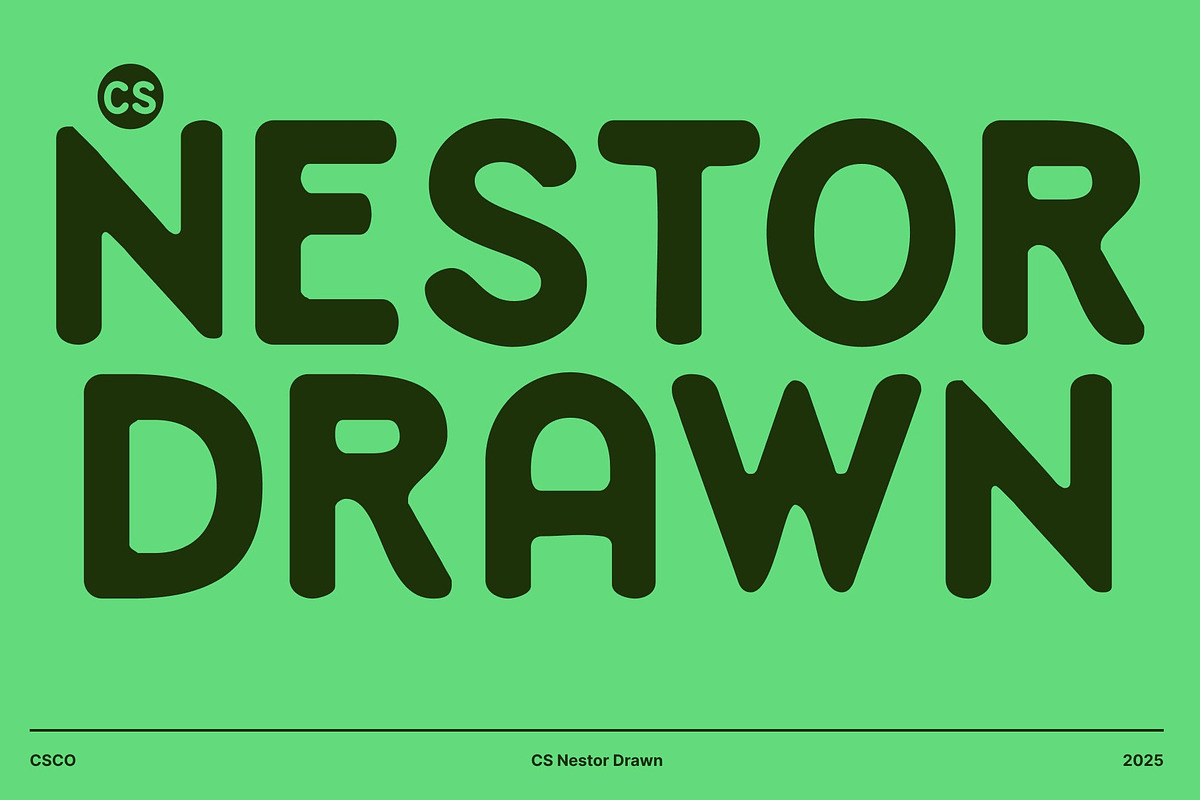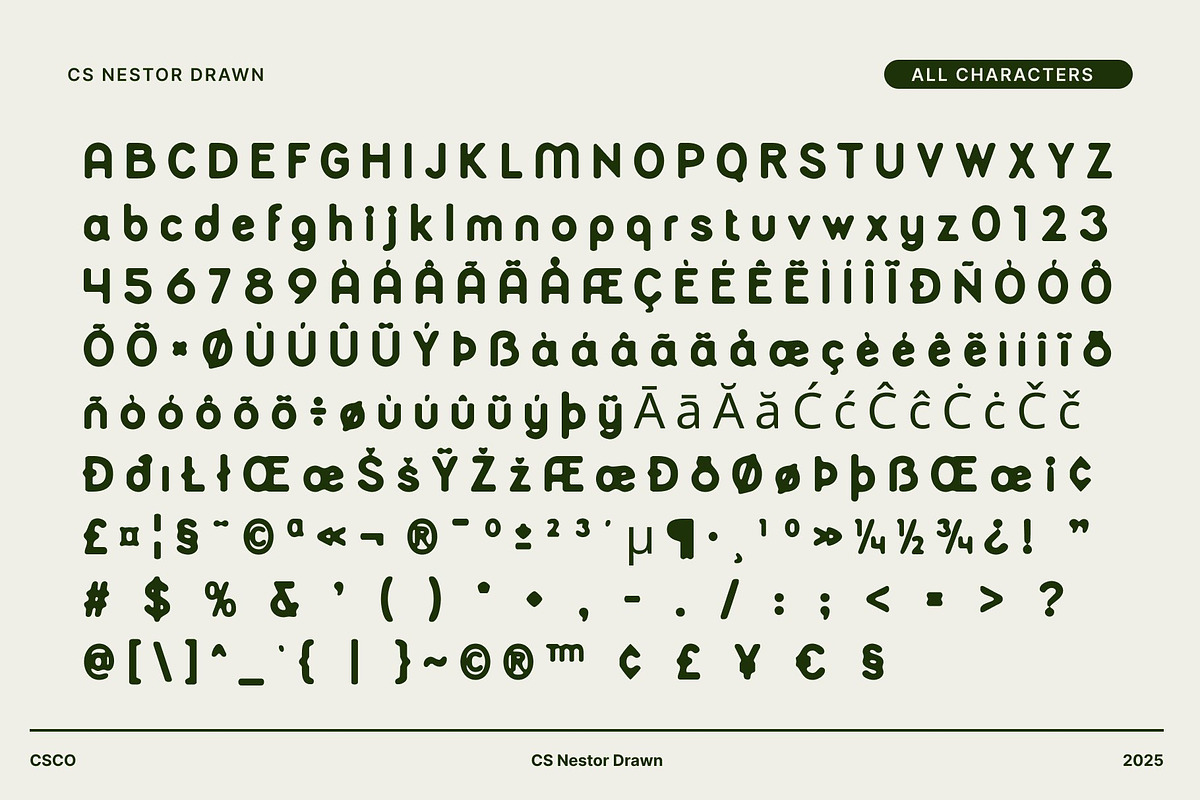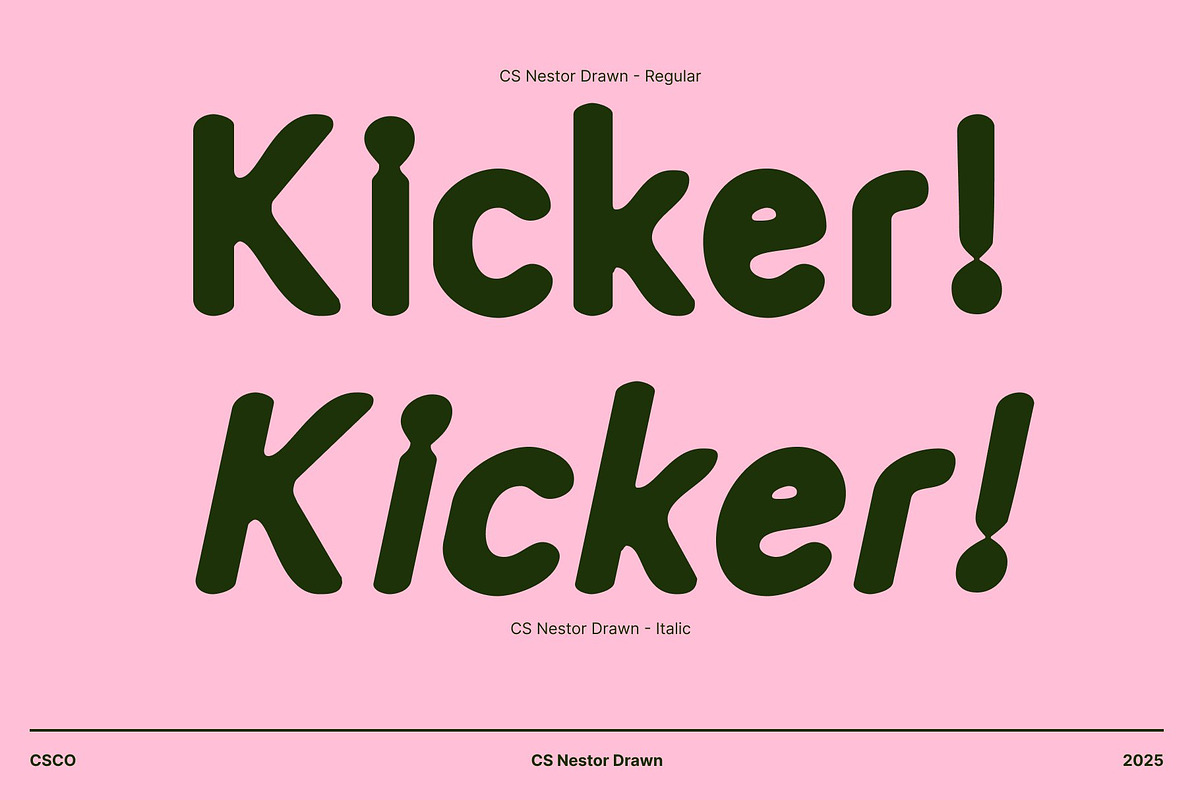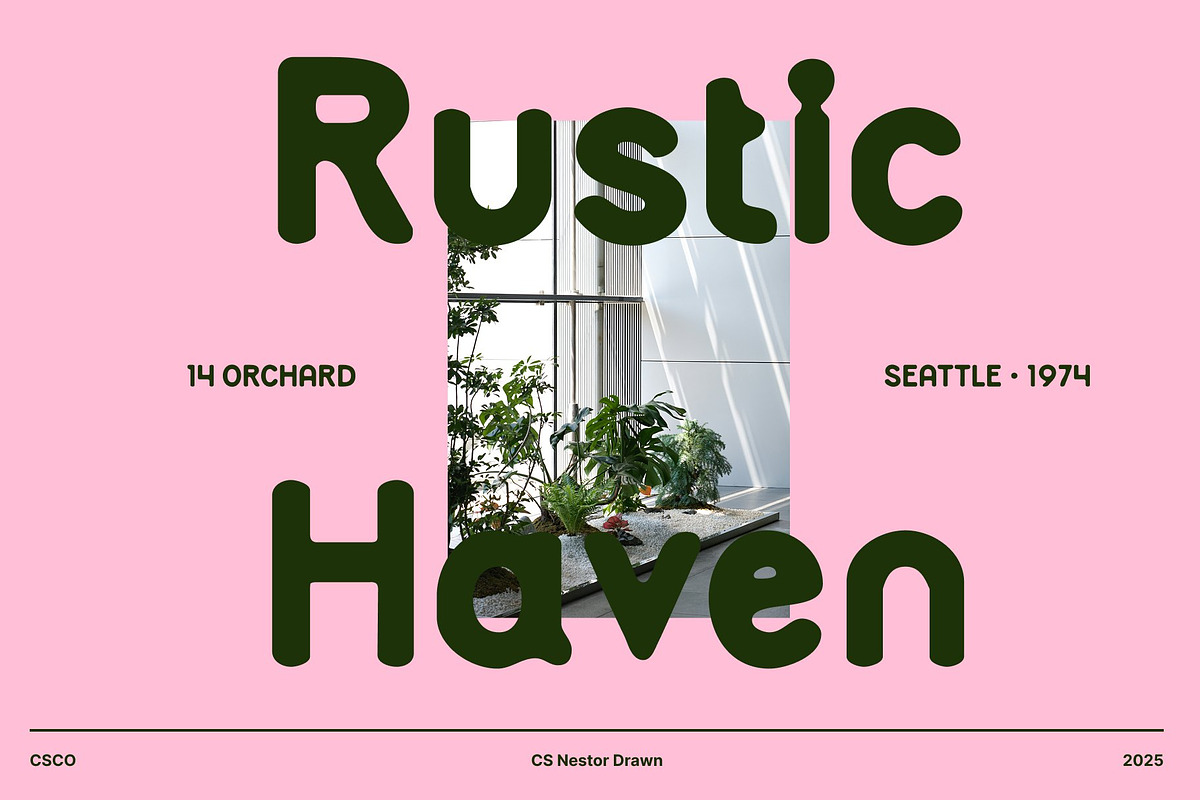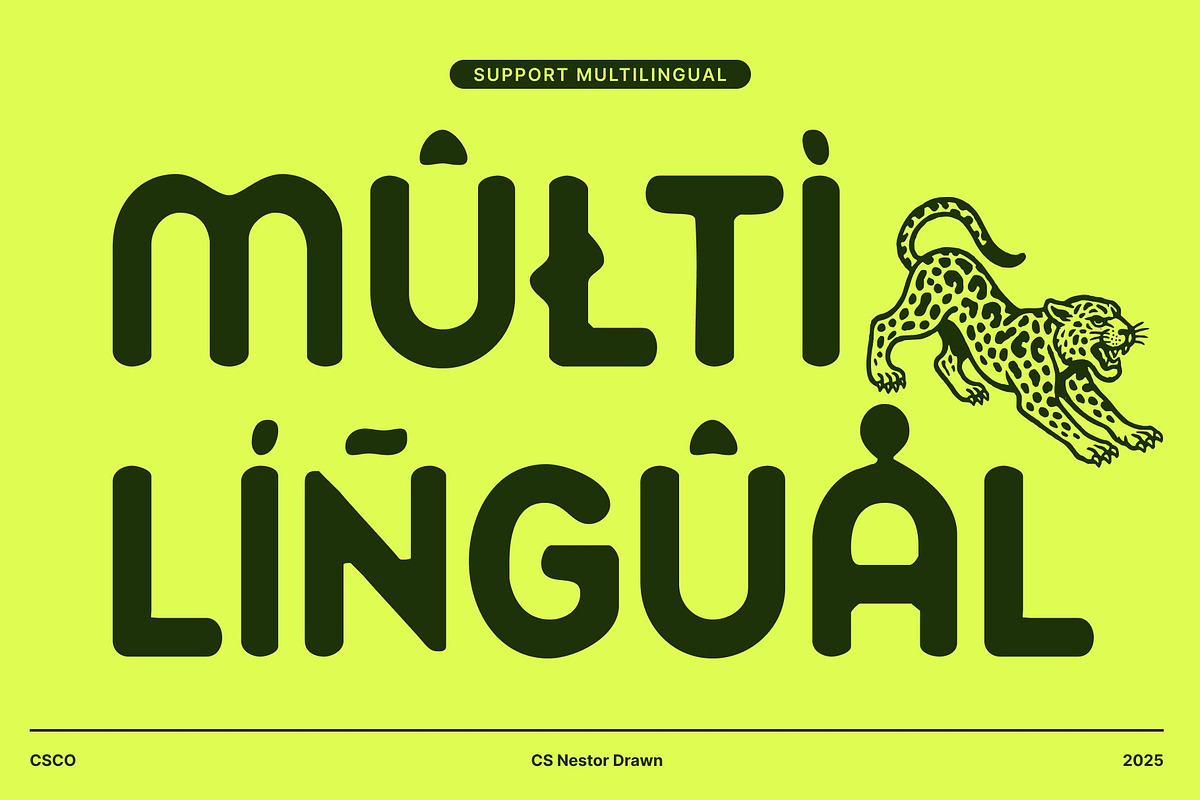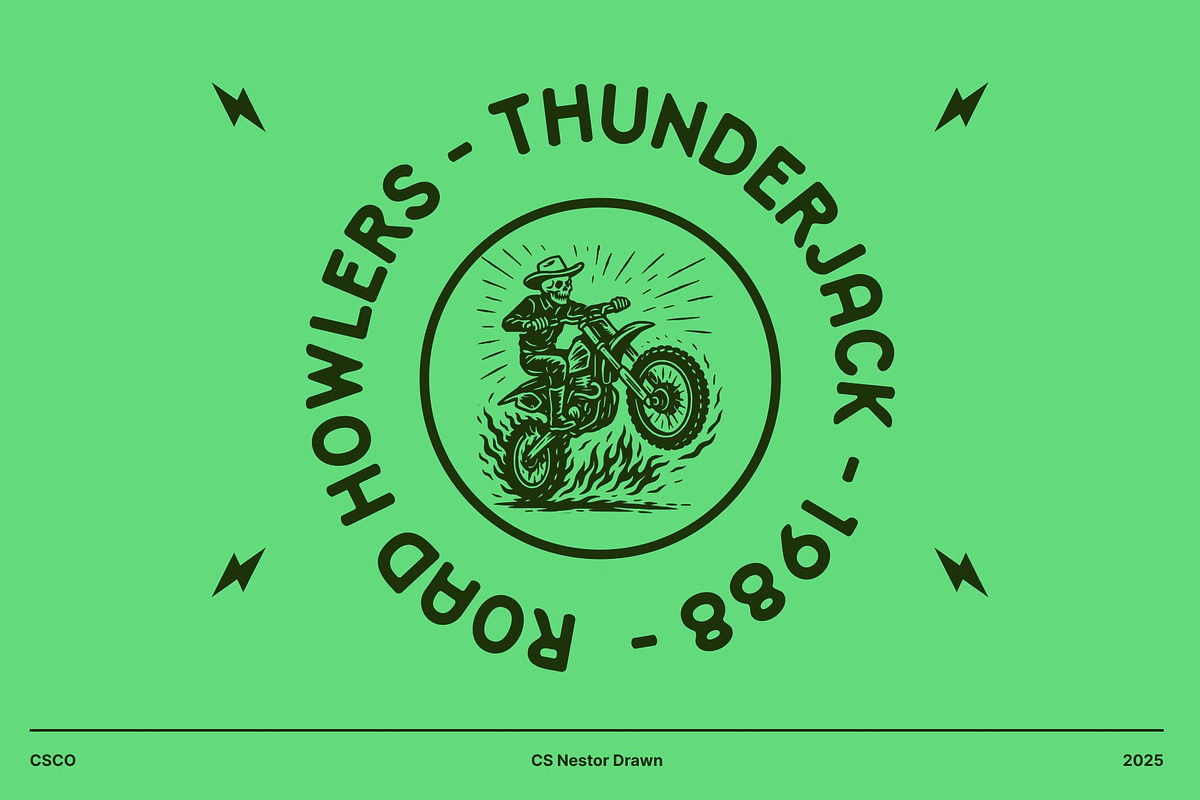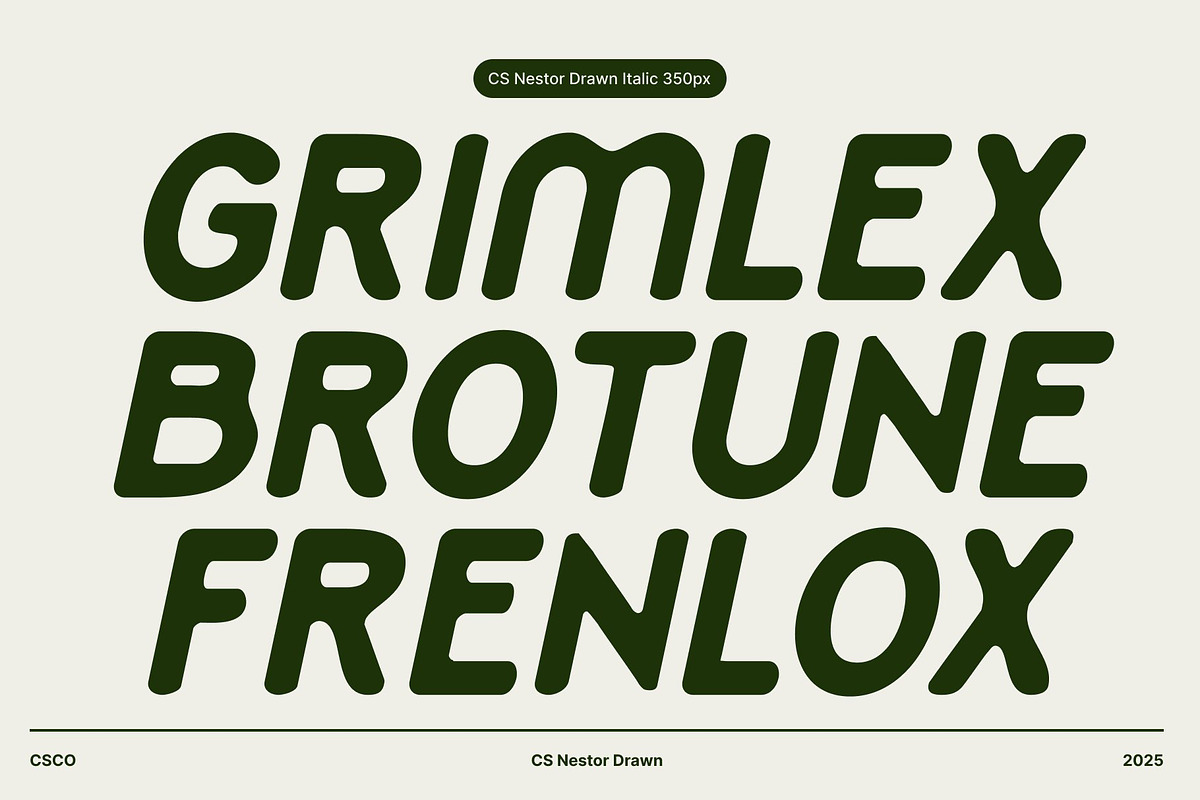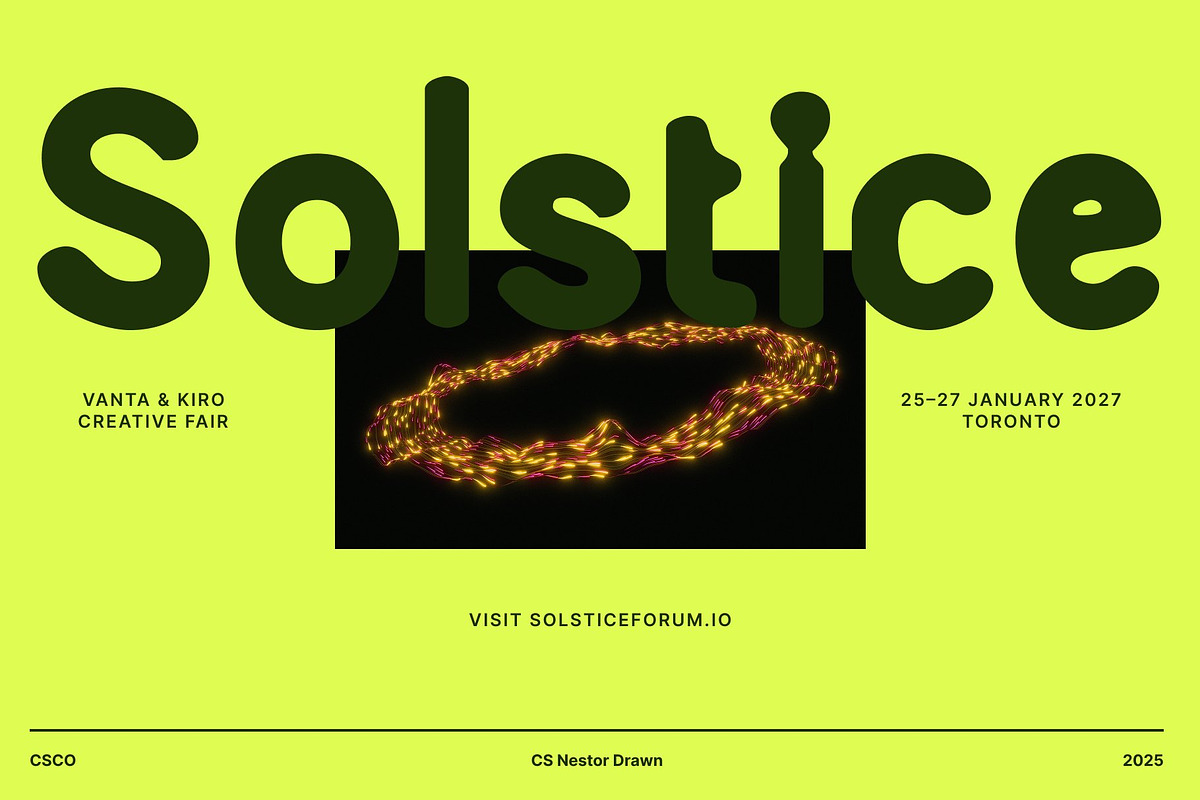
CS Nestor Drawn
CS Nestor Drawn: Playful Sans Serif with Hand-Drawn Charm
Relaxed, Fun Hand-Drawn Style This is sans serif font brings a lively, handcrafted feel to your designs. Each character carries a subtle drawn effect that adds personality and warmth, creating an approachable and cheerful impression that stands out in headlines, posters, and branding materials.
Bold and Readable for Impactful Designs Despite its playful style, maintains strong readability. Its clean sans serif foundation ensures that your message remains clear and effective, while the drawn texture injects energy and character into any layout.
Versatile for Creative Applications Perfect for a wide range of projects, shines in branding, social media graphics, packaging, and poster titles. Its whimsical yet professional vibe allows it to work seamlessly across both playful and modern design contexts.
Adds Personality Without Compromising Professionalism This font strikes the ideal balance between fun and functionality. The hand-drawn effect gives your design a unique, engaging presence, while the structured sans serif base ensures it remains polished and versatile, making it a go-to choice for creative professionals looking to infuse projects with personality.
- CS Nestor Drawn Regular
- CS Nestor Drawn Italic